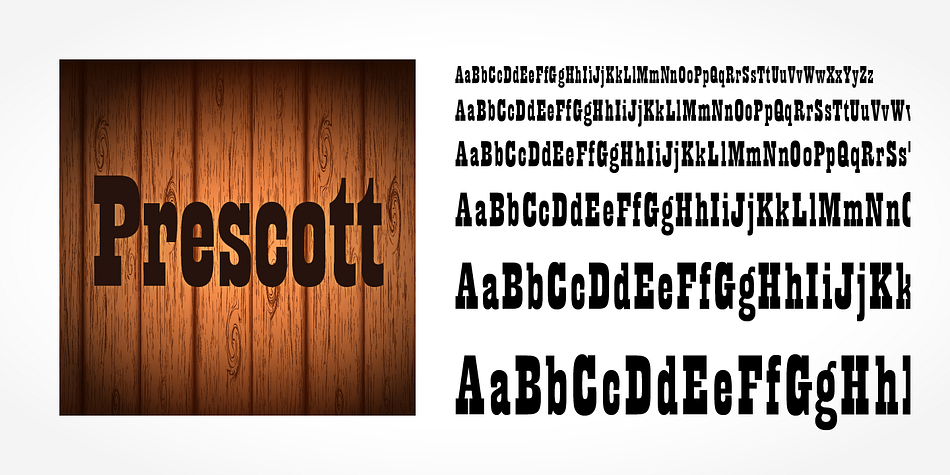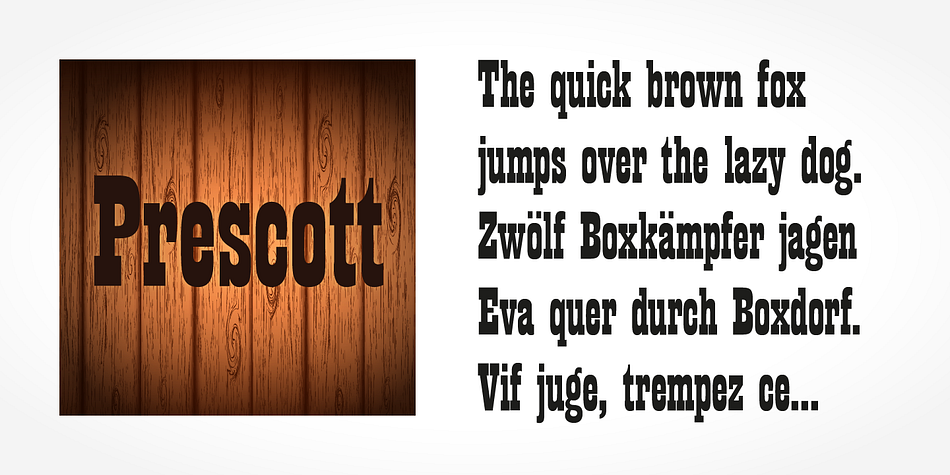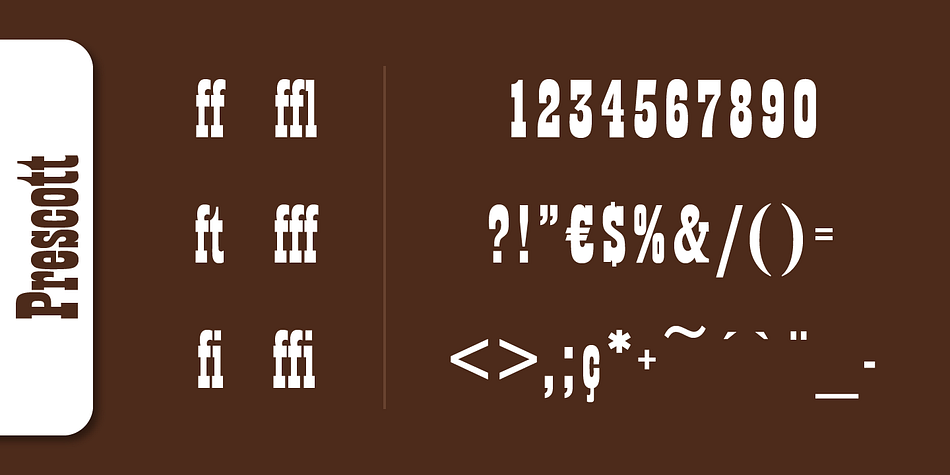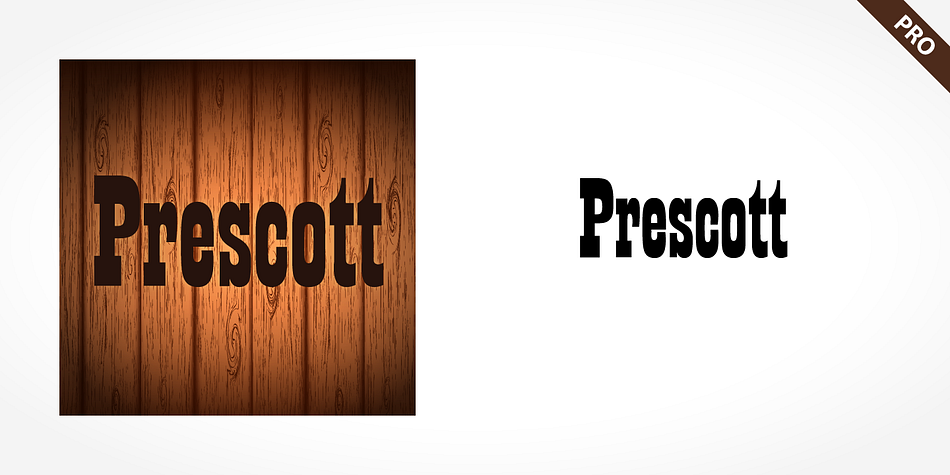
Prescott Pro
Prescott Pro is a western and wood type font published by SoftMaker.
Prescott Pro’s figures are based on those of the so-called woodtypes, a style made popular through use on wanted posters in westerns. Adrian Frutiger’s Westside is a similar font.
Prescott Pro is as rough and ready as the Wild West of which it is reminiscent and its robust figures are a particularly good choice for headlines. Its style is that of the Italienne typefaces due to serifs which are thicker than the strokes.